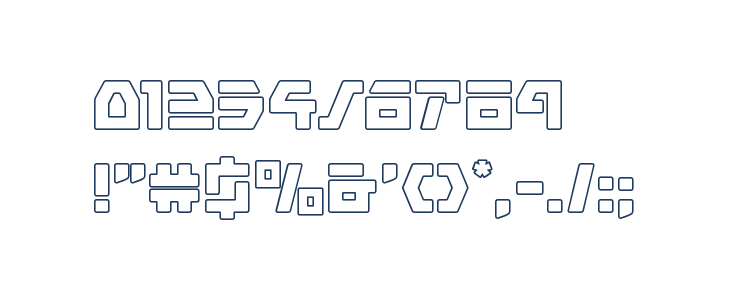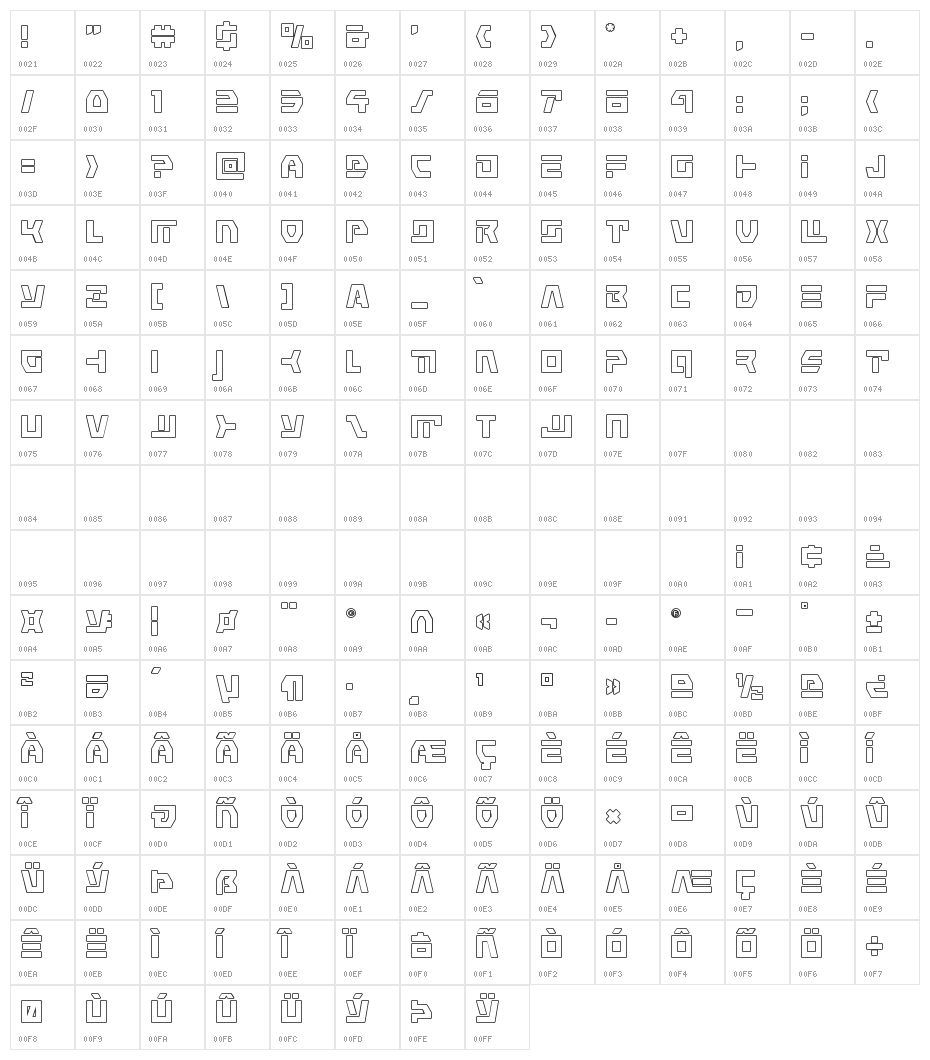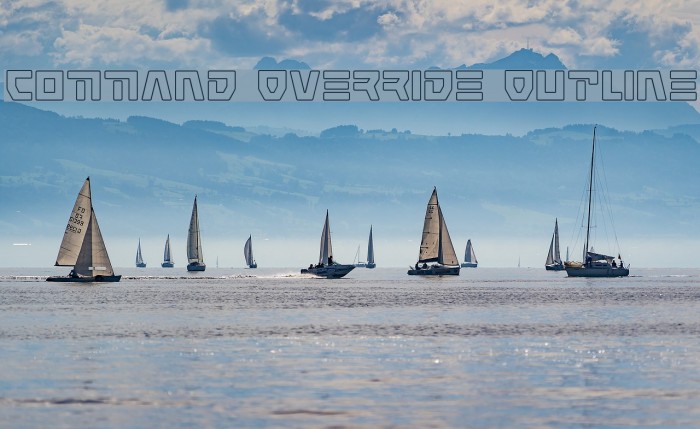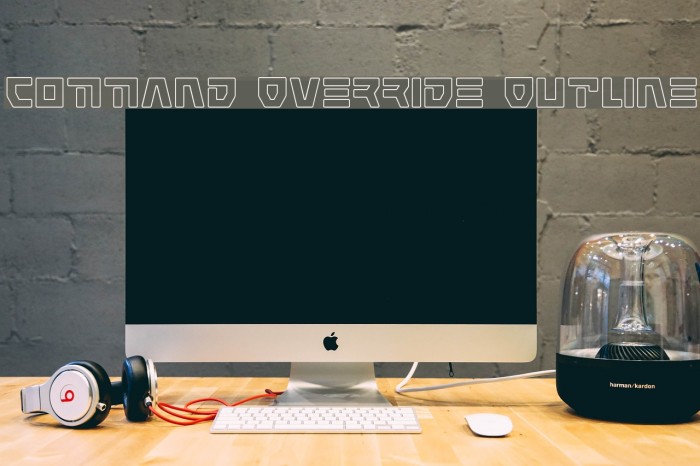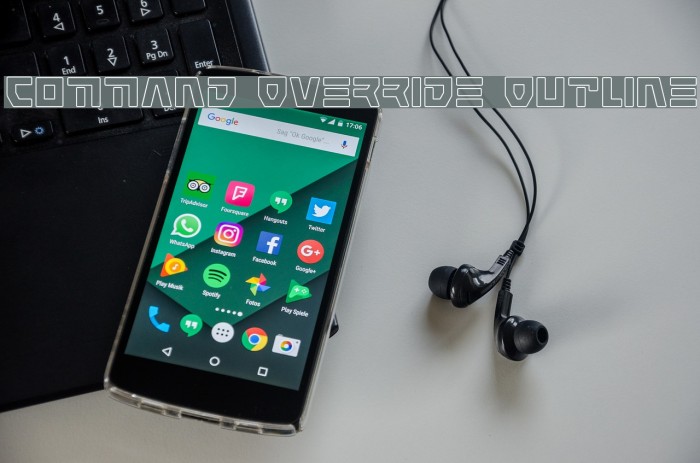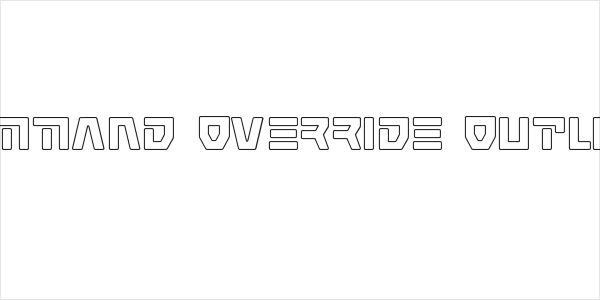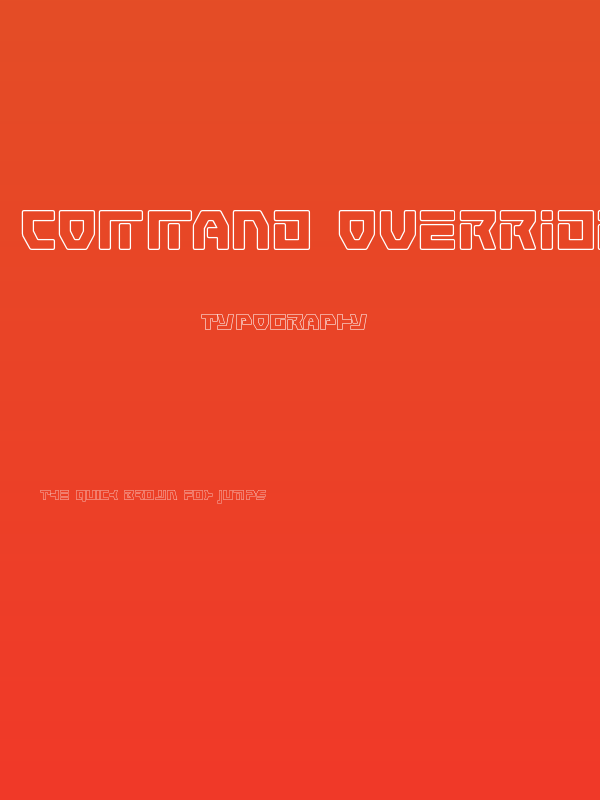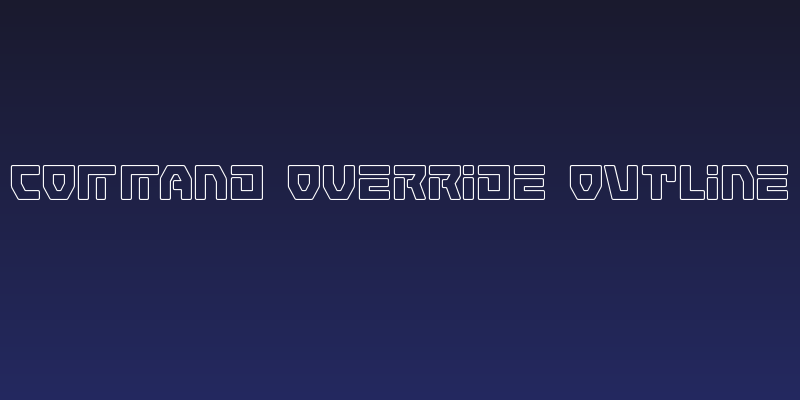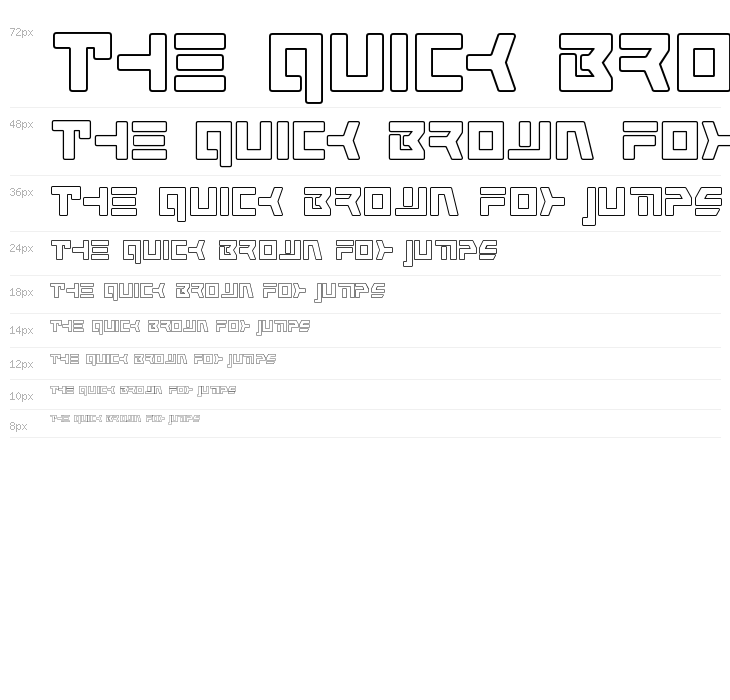
Command Override Outline Font
Command Override Outline Description
This font features a futuristic and geometric design with a distinct outline style. Each character is crafted with sharp angles and straight lines, creating a sense of modernity and precision. The uppercase and lowercase letters maintain a consistent structure, while the numbers and special characters complement the overall aesthetic. The font's outline nature gives it a unique, airy appearance, making it stand out in digital and print media. Its design is reminiscent of sci-fi themes, ideal for projects that require a bold and innovative look.
| Proposed Projects | Ideal for sci-fi themed posters, video game titles, tech branding, and futuristic event invitations. |